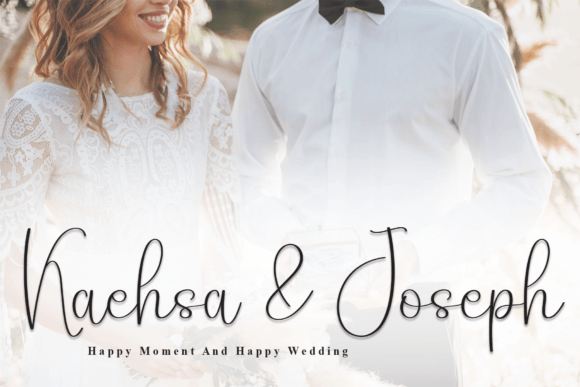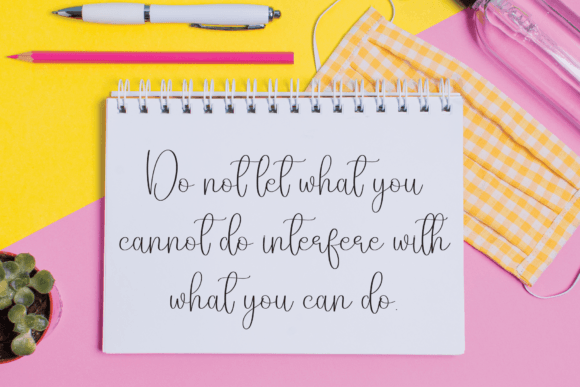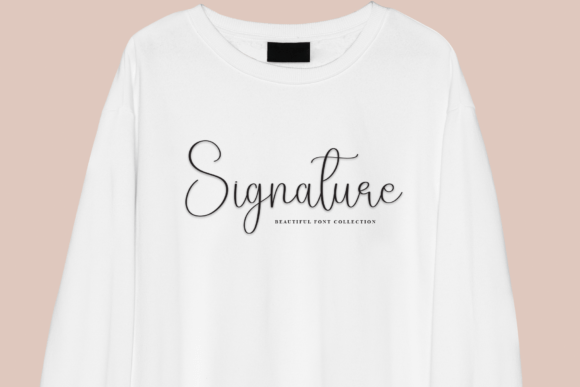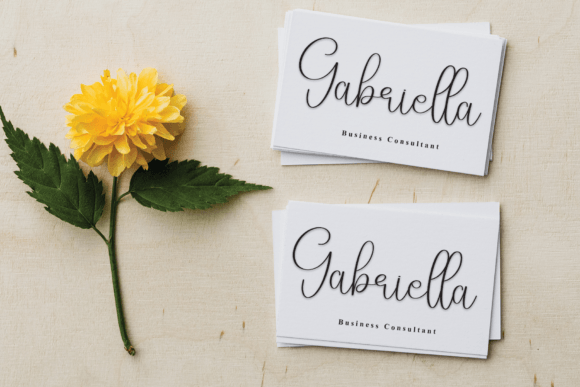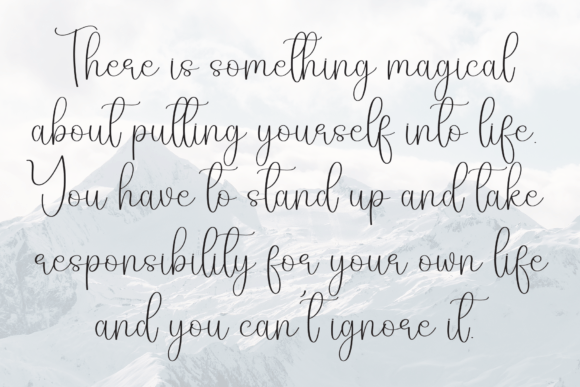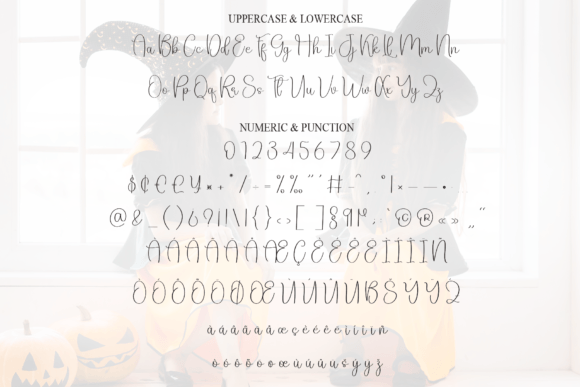
Introduction to Halloween Cutties Font
As you sit at your desk, surrounded by scraps of paper, glue sticks, and paint, the spark of creativity strikes. The idea for a unique Halloween-themed project begins to take shape, and you know exactly what’s missing – the perfect font to bring it all together. That’s where the enchanting Halloween Cutties Font comes in, adding a touch of elegance and whimsy to your design.
As a valuable resource for designers, the Halloween Cutties Font offers a high-quality, free download that’s perfect for creating invitations, logos, and branding materials. Its delicate strokes and flowing curves bring a personal and sophisticated touch to any project, making it a must-have for your design toolkit. Whether you’re working on a creative project or just need a reliable design resource, the Halloween Cutties Font is sure to impress.
Key Features of Halloween Cutties Font
• Unique, playful design ideal for creative projects and seasonal celebrations.
• High-quality design resource available for free download, perfect for designers and crafters.
• Perfect for adding a spooky touch to invitations, party decorations, and other design elements.
Honest Review: Halloween Cutties Font
As a designer, I’m always on the lookout for unique and creative design resources to elevate my projects. Recently, I stumbled upon the Halloween Cutties Font, and I was excited to give it a try.
• ✨ Unique and playful design style that’s perfect for Halloween-themed projects
• ✨ High-quality glyphs and characters that are clear and easy to read
• ✨ Transparent background option, which is great for designers who want to create custom backgrounds
• ⚠️ Limited character set, which may not be suitable for longer texts or body copy
Overall, I think the Halloween Cutties Font is a great addition to any designer’s toolkit. While it has some limitations, its unique design style and high-quality glyphs make it a great choice for creative projects. I would definitely recommend it for anyone looking for a fun and spooky font for their Halloween-themed project.
The Halloween Cutties Font is perfect for creating spooky and festive designs for Halloween-themed events, such as parties, decorations, and invitations. It can also be used in other creative projects, such as brochures, flyers, and social media graphics, to add a touch of Halloween spirit.